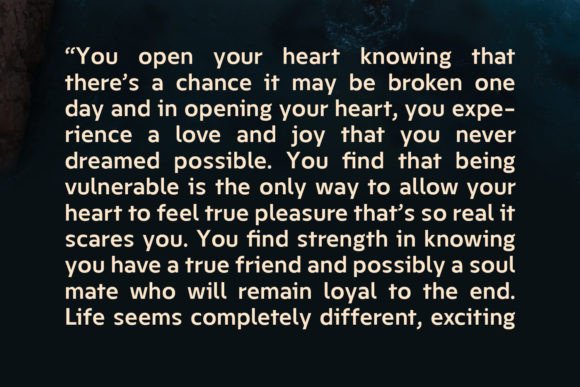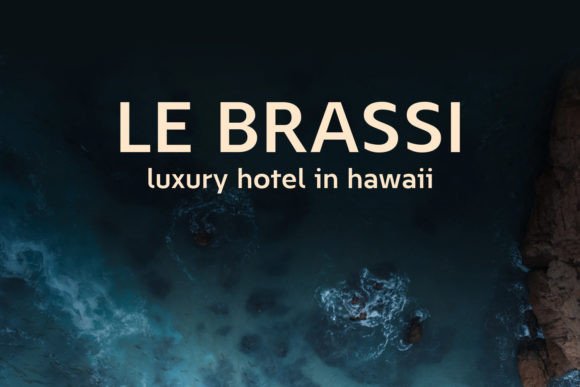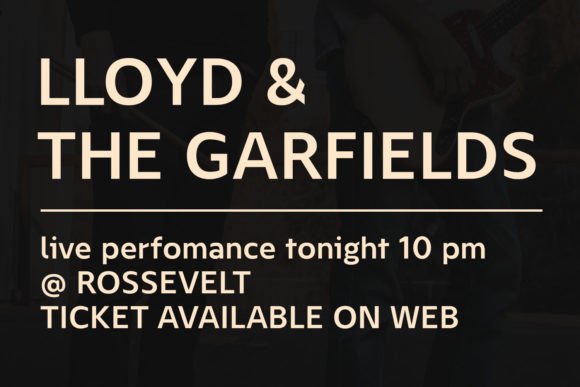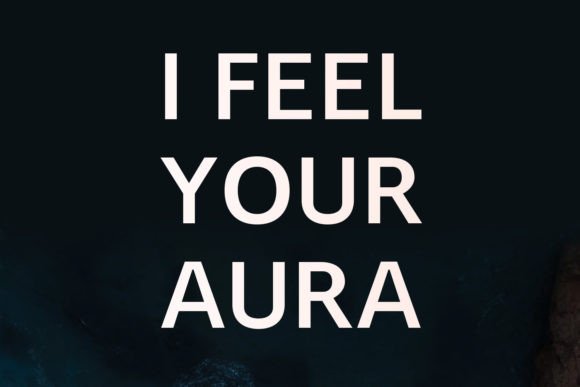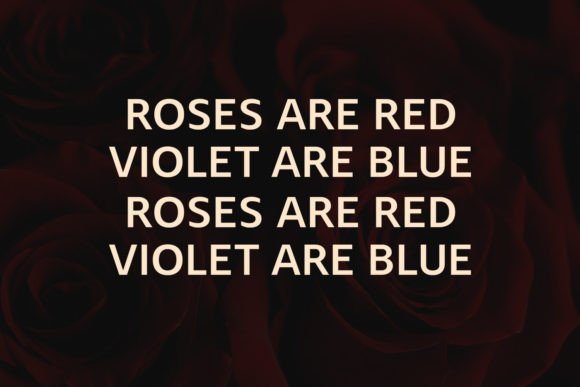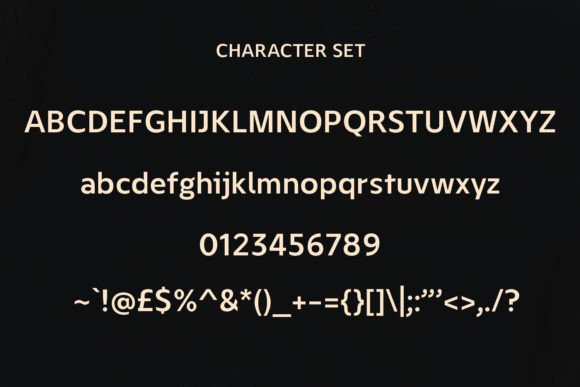
The Perfect Font for Your Next Creative Project
Have you ever stared at a blank page, feeling like a spark of inspiration is just out of reach? That’s when I know it’s time to reach for the perfect font. For me, it’s the moment when the words start flowing, and the design begins to take shape. And that’s exactly what the Erlota Font is all about – bringing your creative ideas to life.
The Erlota Font is a delightful sans-serif font that exudes modern charm and quirky personality. With its regular, consistent strokes and distinctive characters, it’s the perfect addition to any design project. Whether you’re a seasoned designer or just starting out, this font is sure to give your work a unique touch that sets it apart from the rest.
Erlota Font Key Features
- Font Family: Erlota Font is a sans-serif font family, ideal for modern and clean designs.
- Unique Characteristics: Erlota Font features a unique blend of modern and minimalist design elements, making it suitable for a wide range of applications, from corporate identities to digital interfaces.
- Language Support: The font family supports a wide range of languages, including Latin, Cyrillic, and Greek alphabets, making it an excellent choice for global designs.
Erlota Font Review
I recently had the chance to work with the Erlota font, and I must say it’s a mixed bag. Here’s my honest review.
- The Erlota font has a unique and quirky charm to it. Its irregular letterforms and playful feel make it perfect for creative projects.
- The font is highly legible, even at smaller font sizes, which is a big plus for designers who need to ensure their text is easily readable.
- The font family includes a wide range of weights and styles, making it easy to find the perfect match for your project.
- The Erlota font can be a bit overwhelming to read in large blocks of text. Its irregularities can make it difficult to focus on the content.
- The font may not be suitable for formal or corporate projects, as its quirky feel may not be taken seriously.
- The font is not as versatile as some other fonts on the market, and may not work well in certain contexts, such as in menus or other small text.
Overall, the Erlota font is a great choice for designers who want to add a bit of personality to their projects. While it may have some limitations, its unique charm and high legibility make it a great option for creative projects. Just be sure to use it sparingly and in contexts where it will shine.
The Erlota Font is a versatile and elegant font that can be used in a variety of contexts, including:
- Business cards and marketing materials
- Book covers and publishing projects
- Special occasion graphics and decorations
Alternatives to Erlota Font for Designers
The Erlota Font is a sans-serif font known for its clean and modern design. However, there are several alternatives that can provide a similar aesthetic while offering unique features and characteristics. Here are a few options:
Open Sans is a popular sans-serif font designed by Steve Matteson. It is highly legible and works well for both body text and headings. Open Sans is suitable for digital applications, such as websites and mobile apps, where readability is crucial. Compared to Erlota Font, Open Sans has a slightly more rounded design and is more optimized for digital use.